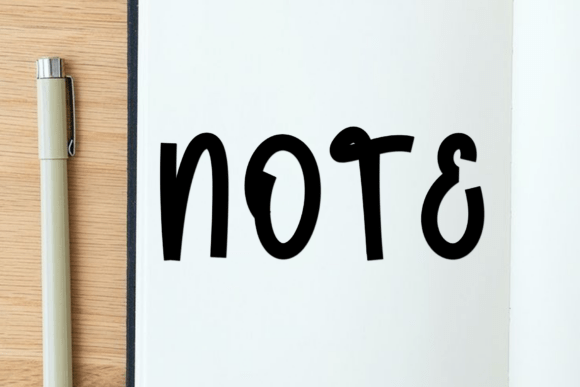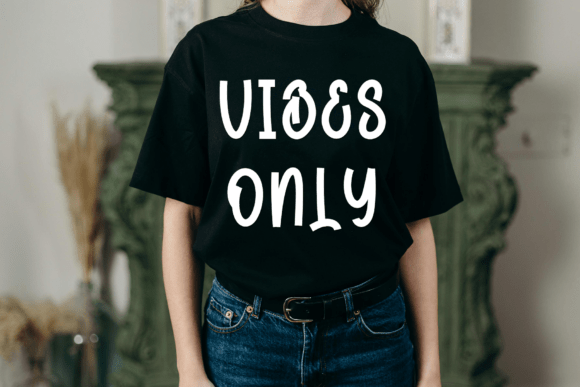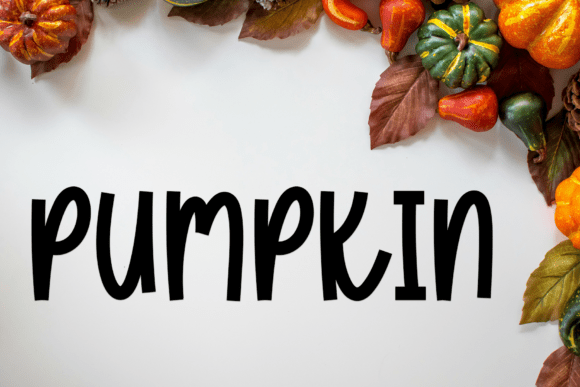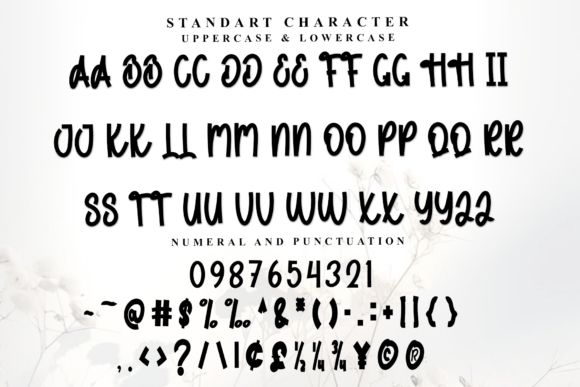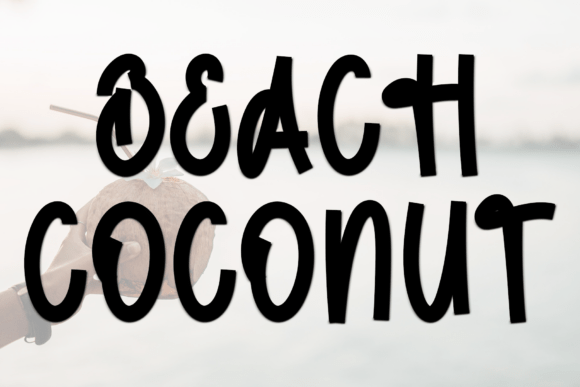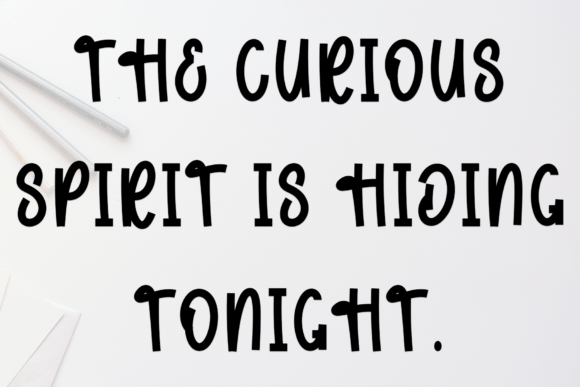
Introduction to Party School Font
Have you ever stumbled upon a font that makes you stop scrolling and dream up an entire creative project around it? For designers and artists, discovering the perfect font can be a game-changer, setting the tone for an entire design direction. And that’s exactly what happened when we came across the Party School Font – a beautiful and eye-catching typeface that’s as versatile as it is stunning.
With its soft, unique touch and distinctive strokes, the Party School Font is a valuable design resource that can elevate any project. Whether you’re working on a design project, crafting a unique product, or simply looking for a high-quality font to enhance your creative work, this font is an excellent choice. Its compatibility with various applications, including Windows and open-source platforms, makes it an ideal addition to your design toolkit.
Key Features of Party School Font
- High-quality design resource ideal for creative projects, such as posters, flyers, and social media graphics.
- Part of a growing collection of fonts designed to cater to the needs of modern designers and creatives.
- Unique, handcrafted design that sets it apart from other fonts in the market, perfect for designers seeking a distinctive look.
Honest Review: Party School Font
I recently stumbled upon the Party School Font, and I have to say, it’s a design resource that’s caught my attention. With its vibrant and playful style, it’s perfect for any creative project that needs a bold and eye-catching font.
Here are some of the things that I like about the Party School Font:
- ✨ High quality and crisp design
- ✨ Versatile and suitable for various creative projects
- ✨ Transparent background for easy use
- ⚠️ Limited character set, which may not be suitable for long texts
- ⚠️ May not be suitable for professional or formal designs
Overall, I’m quite impressed with the Party School Font. It’s a great addition to any designer’s toolbox, and I’d definitely recommend it for any creative project that needs a fun and playful touch.
The Party School Font is a high-quality design resource perfect for creative projects that require a fun and vibrant aesthetic. With its transparent background, this font is versatile and easy to use in various design applications.
Tips for Getting the Most Out of Party School Font
For optimal results, use the Party School Font in conjunction with other design elements that complement its vibrant aesthetic. Experiment with different font sizes and colors to create a unique and eye-catching design.
The Party School Font is perfect for social media graphics, party invitations, and other creative projects that require a fun and playful vibe. You can also use it to add a pop of color to your design projects.
Alternatives to Party School Font
Great Vibes is a high-quality, handwritten font that is perfect for creative projects that require a touch of elegance and sophistication. It features a transparent background, making it ideal for designs that need a subtle, yet eye-catching look. Great Vibes is ideal for use in invitations, posters, and other promotional materials.
Compared to Party School Font, Great Vibes has a more refined and polished look, making it suitable for a wider range of design projects.
Carolyna Pro is a modern, sans-serif font that is perfect for designers who need a high-quality, versatile font for their creative projects. It features a clean and minimalistic design, making it ideal for use in digital designs, such as websites and mobile apps.